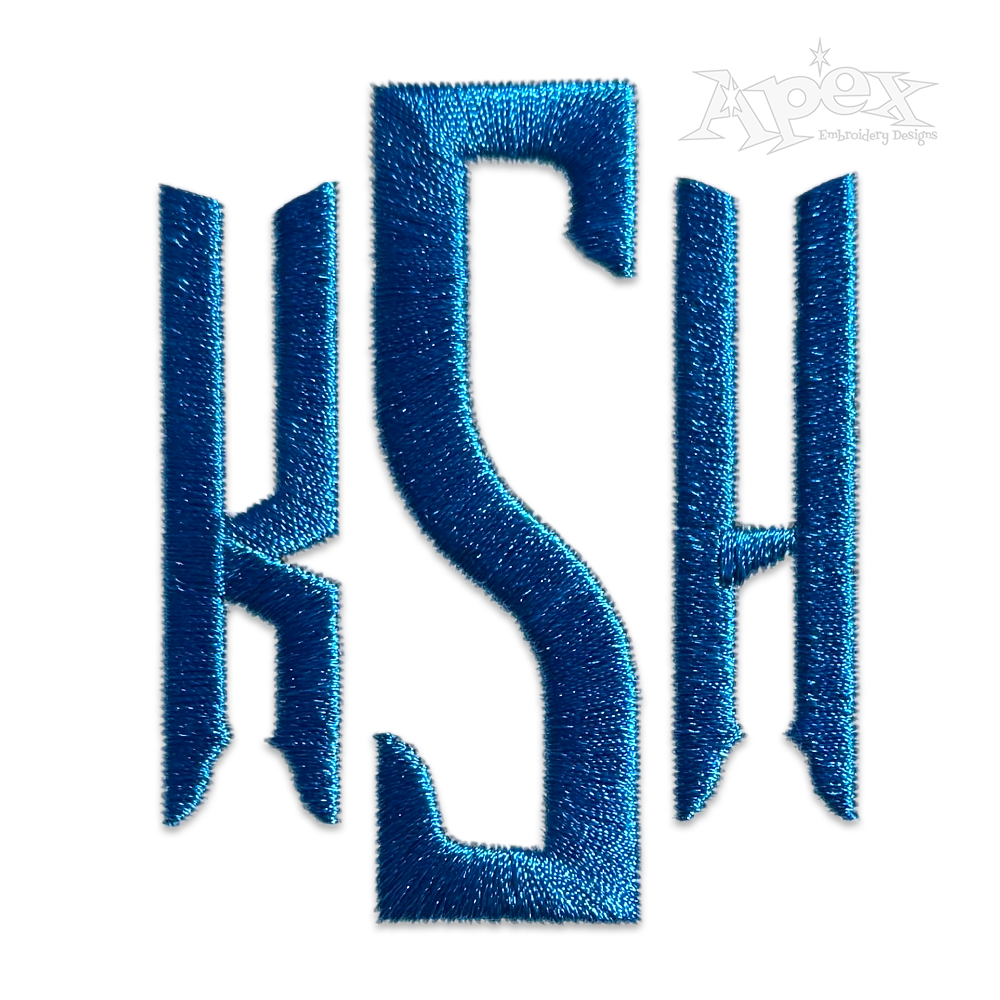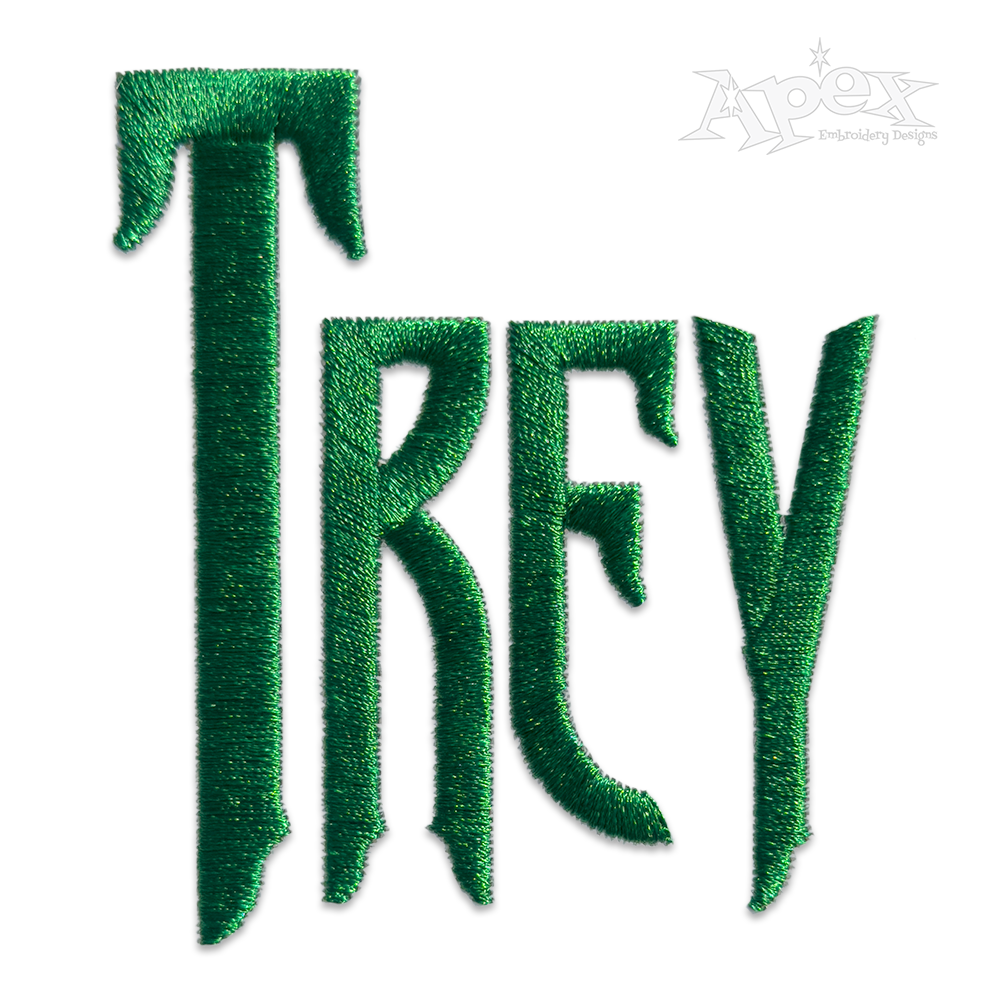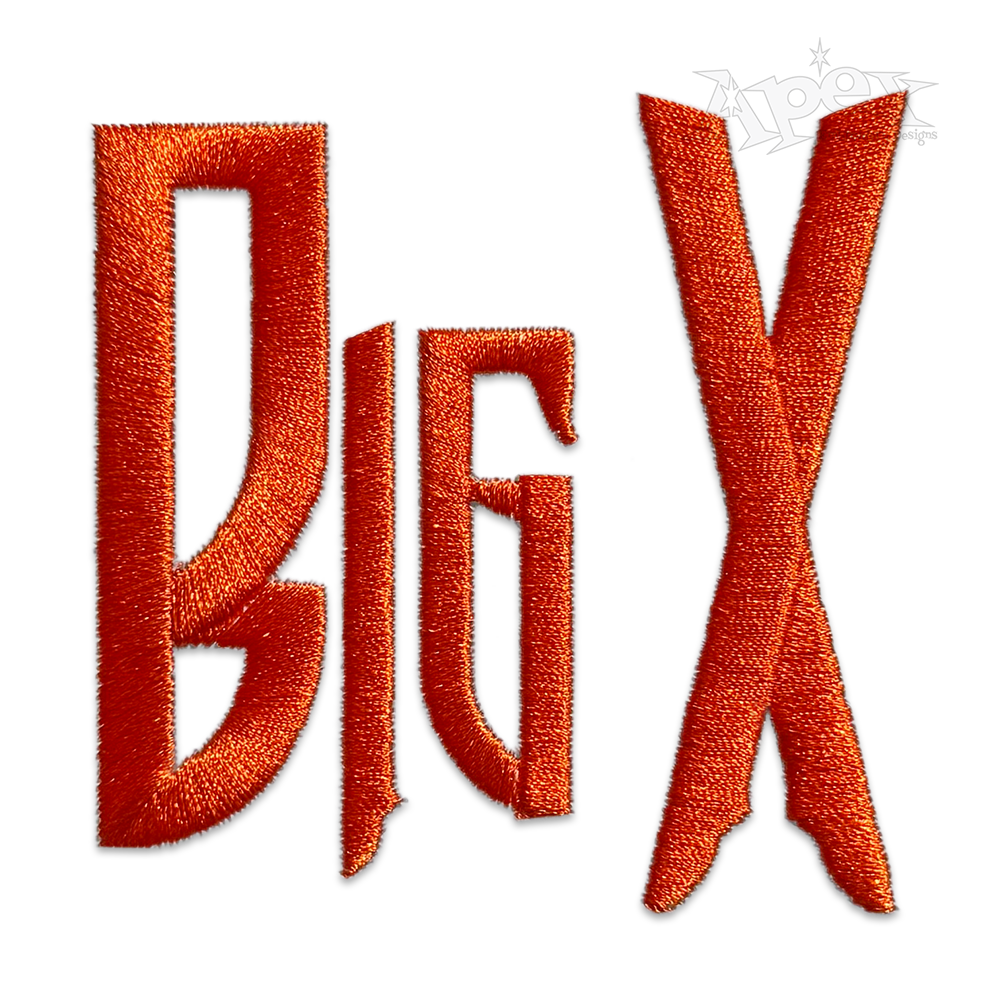
Halloween Ghost Embroidery Font
Conjured from the playful shadows of October twilight, the Halloween Ghost Embroidery Font captures the spirited, spectral dance of classic autumn lore. When drafting this alphabet on the digitizing tablet, our goal was to balance spine-tingling whimsy with elegant tailoring—giving each character an elongated, ethereal stance reminiscent of wandering phantoms slipping through moonlit mist. The towering silhouettes and slender satin strokes lend an unexpected air of modern gothic charm to seasonal textiles, transforming ordinary fabric into an enchanting canvas of bespoke Halloween storytelling.
Project Ideas for Halloween Ghost Embroidery Font
Infuse haunted elegance into your seasonal sewing rotation with personalized monograms and festive phrases:
- Heirloom Canvas Trick-or-Treat Bags: Embroider children’s names across heavy-duty canvas or velvet tote bags for a personalized keepsake that returns year after year.
- Gothic Cocktail & Dinner Linens: Stitch eerie family initials onto charcoal or bone-white linen cocktail napkins for elevated Halloween dinner parties.
- Seasonal Loungewear & Sweaters: Create bespoke collegiate-style crewnecks, cozy fleece pullovers, and seasonal matching family pajamas.
- Haunted Home Decor: Accent textured burlap table runners, plush velvet lumbar pillows, or quilted wall hangings with witty autumn expressions.
- Bespoke Gifting: Personalize trick-or-treat treat sacks, kitchen tea towels, and seasonal pet bandanas for thoughtful neighbor gifts.
The distinctive vertical architecture of this typeface responds beautifully to intentional, creative placement across a wide variety of textiles:
- Corner Diagonal: Angle initials at a 45-degree corner orientation on heirloom table linens or tea towels to allow the slender, ghostly ascenders to frame the border naturally.
- Center Chest: Utilize the commanding 3-inch size centered across the chest of a dark hoodie or sweater for a bold, graphic holiday motif.
- Cuffs and Hemlines: Nestle a single 1-inch monogram along an apron strap, sleeve cuff, or towel hem for an understated, bespoke discovery.
- Pockets and Bands: Align short words or names horizontally across the top band of a canvas tote or centered on an exterior patch pocket.
Halloween Ghost Embroidery Font Craft & Letterform Details
The beauty of this spooky typography lies in its deliberate verticality and nuanced stitch mapping. Each letterform is built with high-waisted crossbars, dramatic vertical stems, and gently exaggerated curves that echo the fluid motion of ghostly shrouds. Rather than relying on simple flat fills, every satin column is thoughtfully programmed with calculated density, calibrated pull compensation, and gentle stitch angles. This technical precision ensures the slender stems maintain razor-sharp definition without pulling or puckering on stretchy knits, while the satins catch the light with an authentic, luminous sheen that feels both delightfully chilling and impeccably refined.